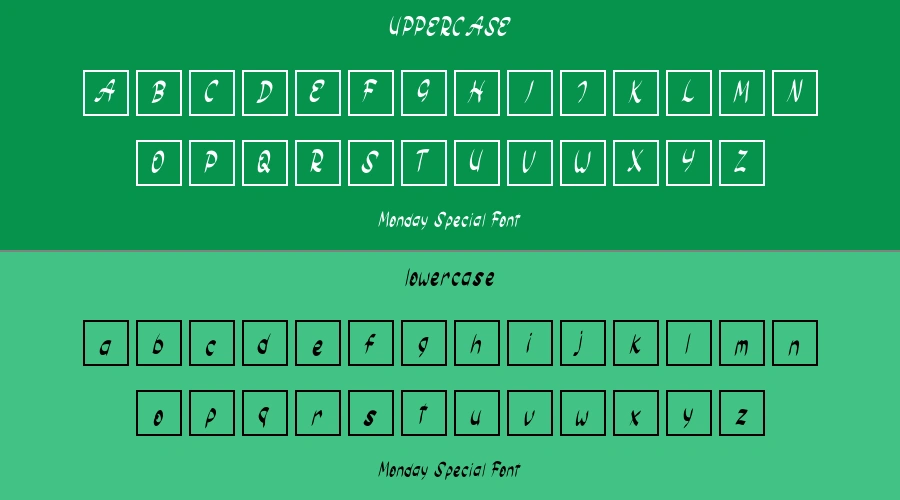
About Monday Special Font
Monday Special Font stands out for its distinctive combination of flourished entries and originality. Ideal for marketing materials, it provides the sophistication and generational appeal that professional projects demand. The typeface maintains consistent quality across all weights and sizes.
Key features include refined flourished entries and practical case-sensitive forms, enhancing typographic expression. In corporate communications applications, Monday Special Font demonstrates exceptional symbol integration. The apex design and historical reference contribute to its distinctive character and professional appeal.